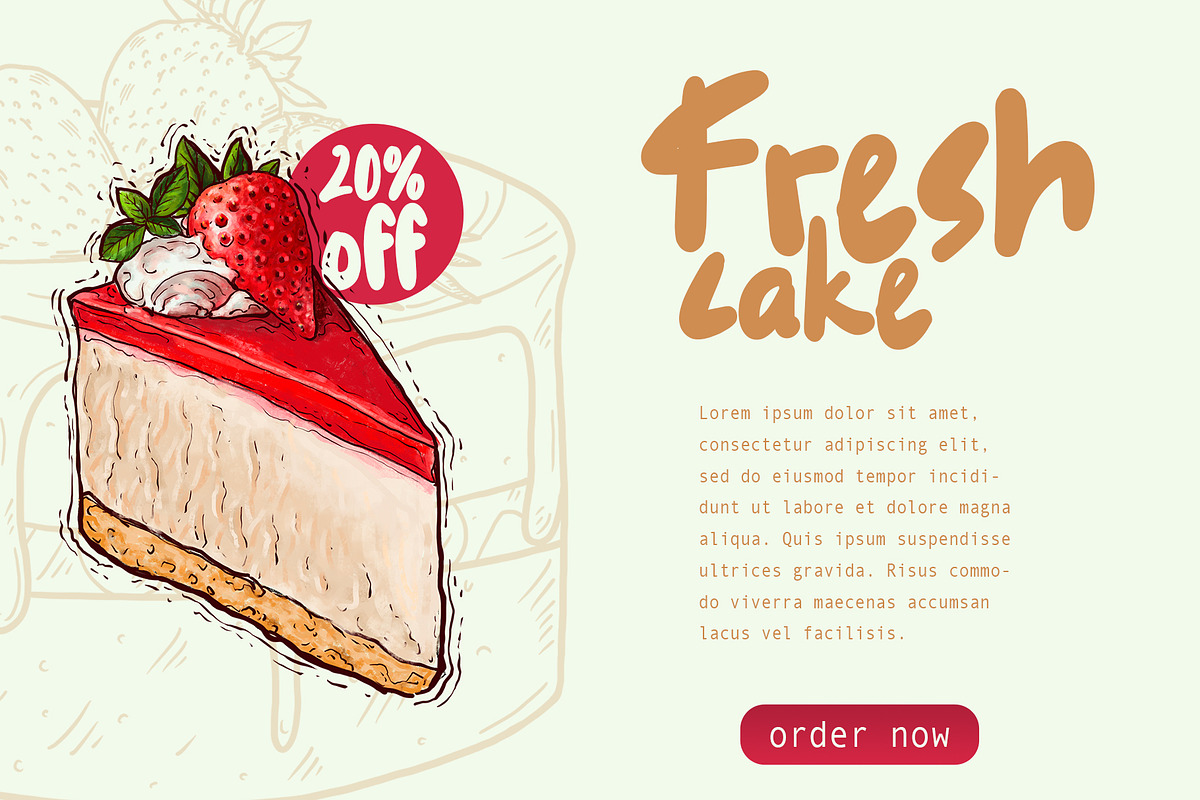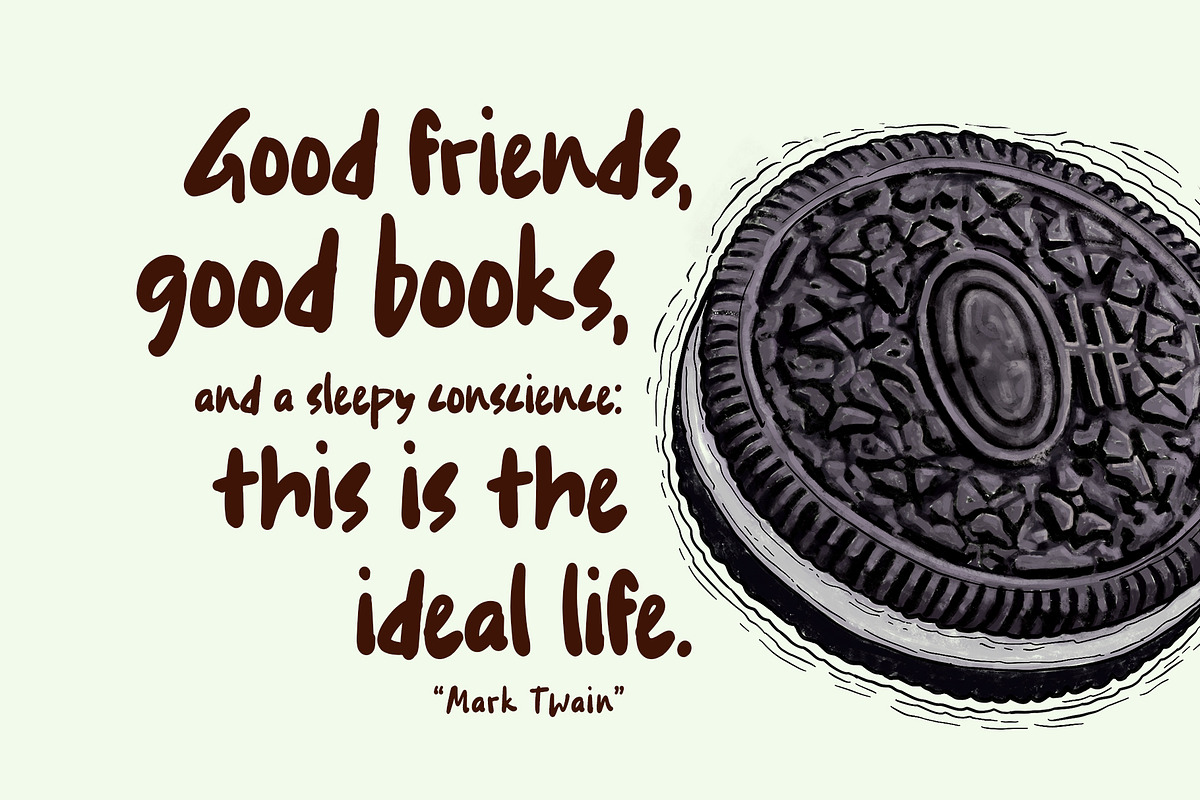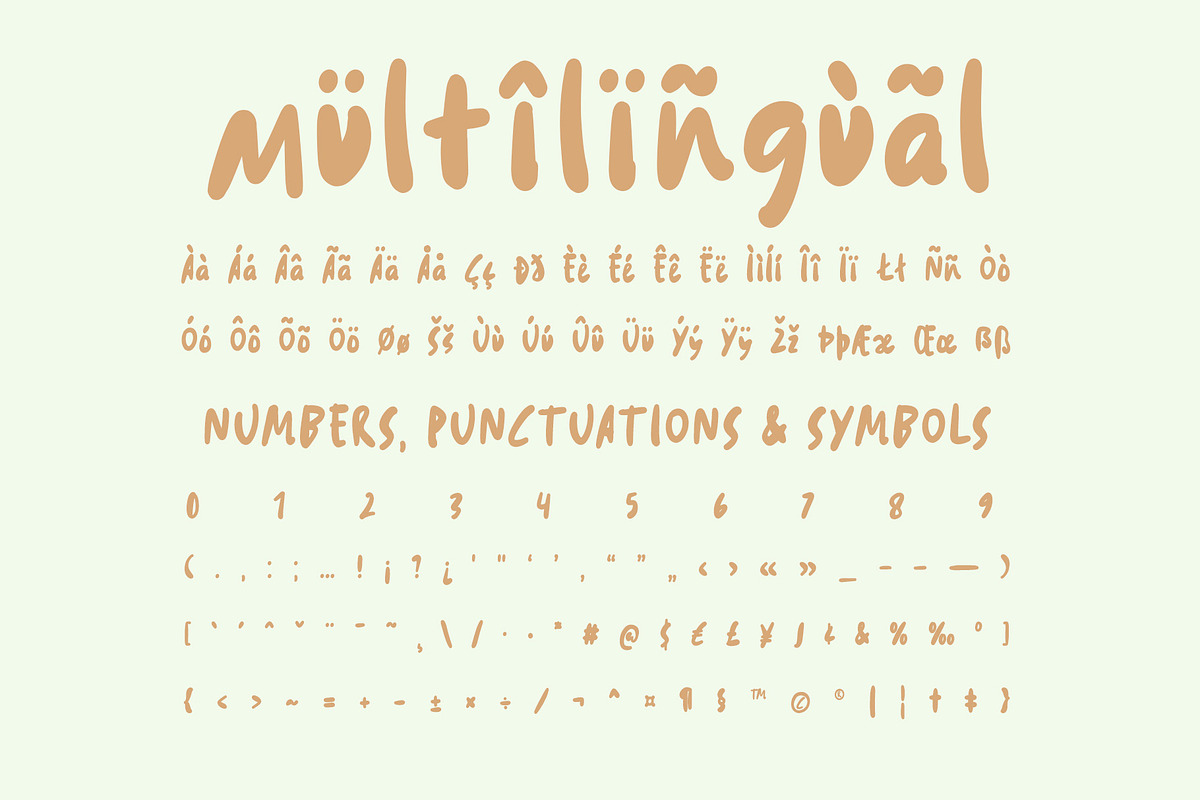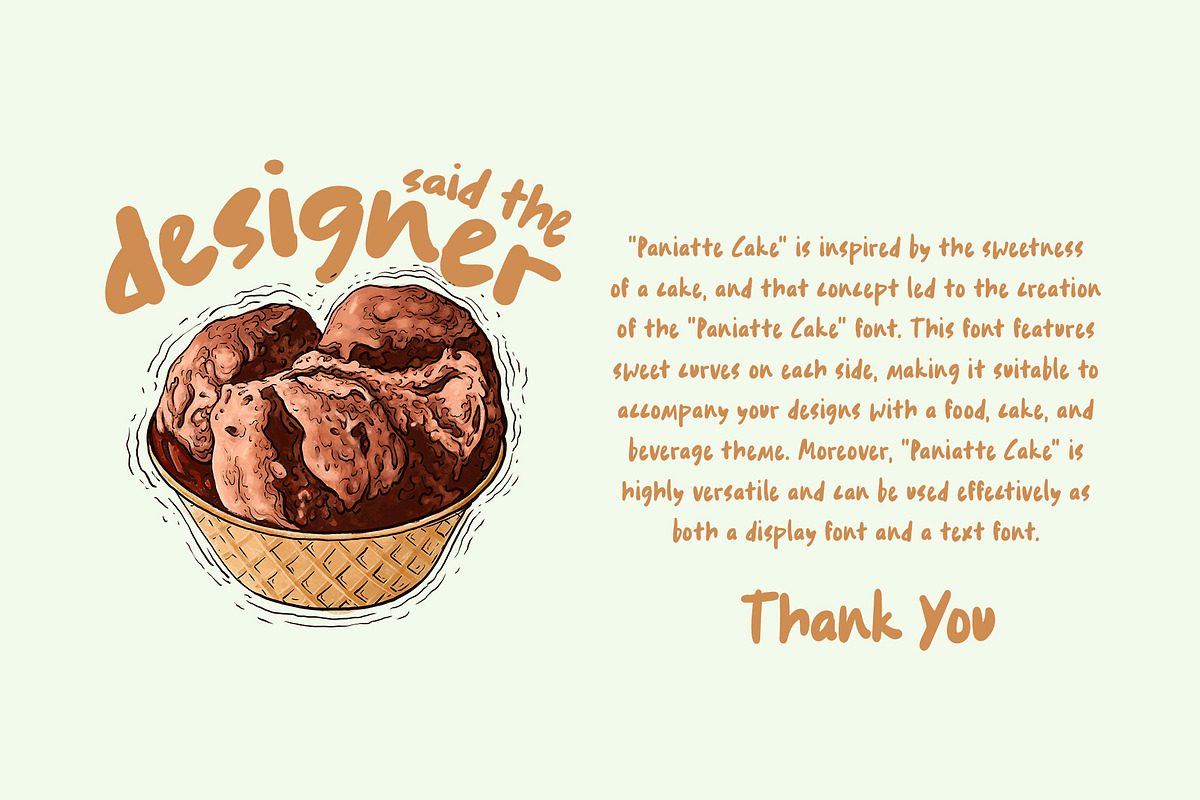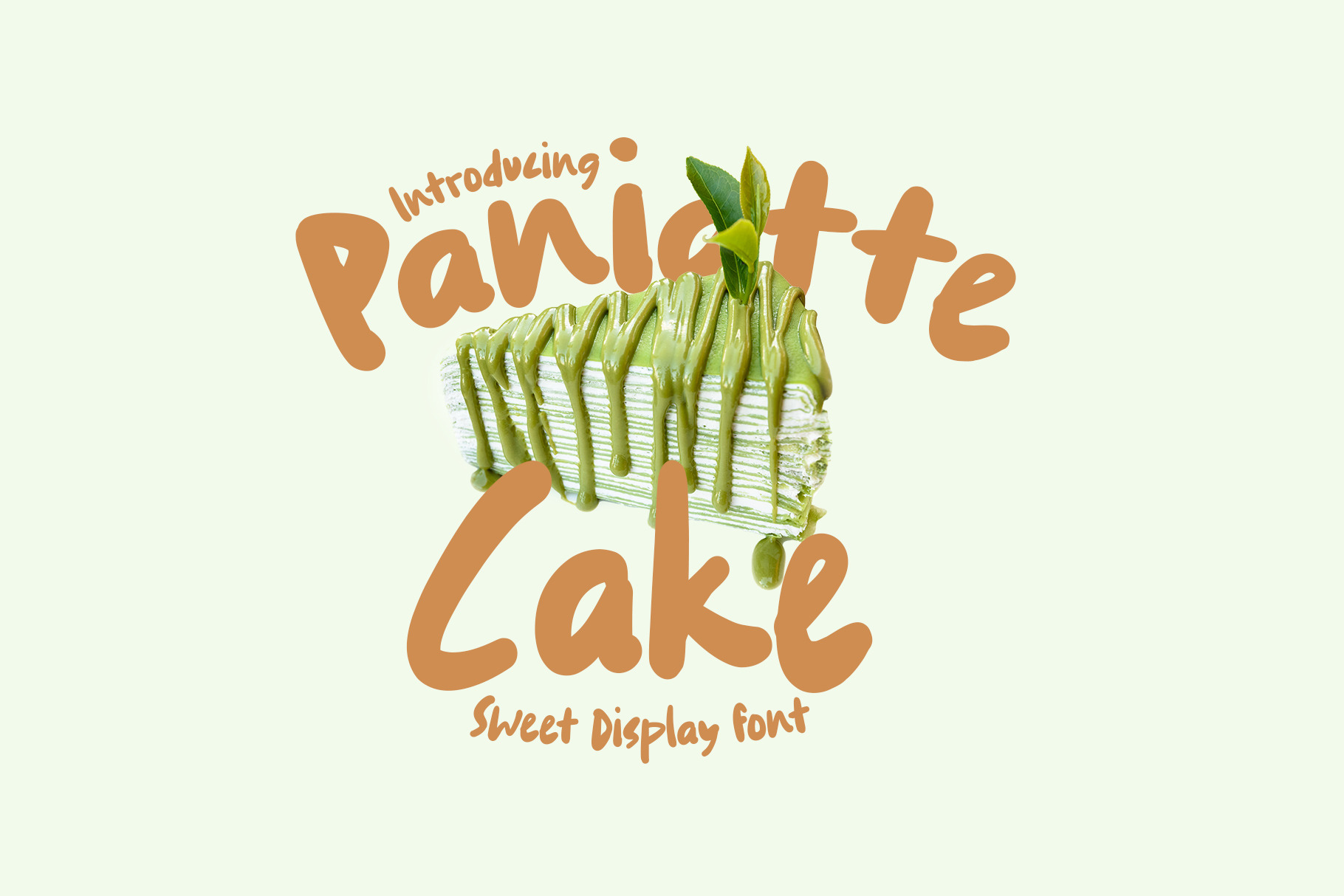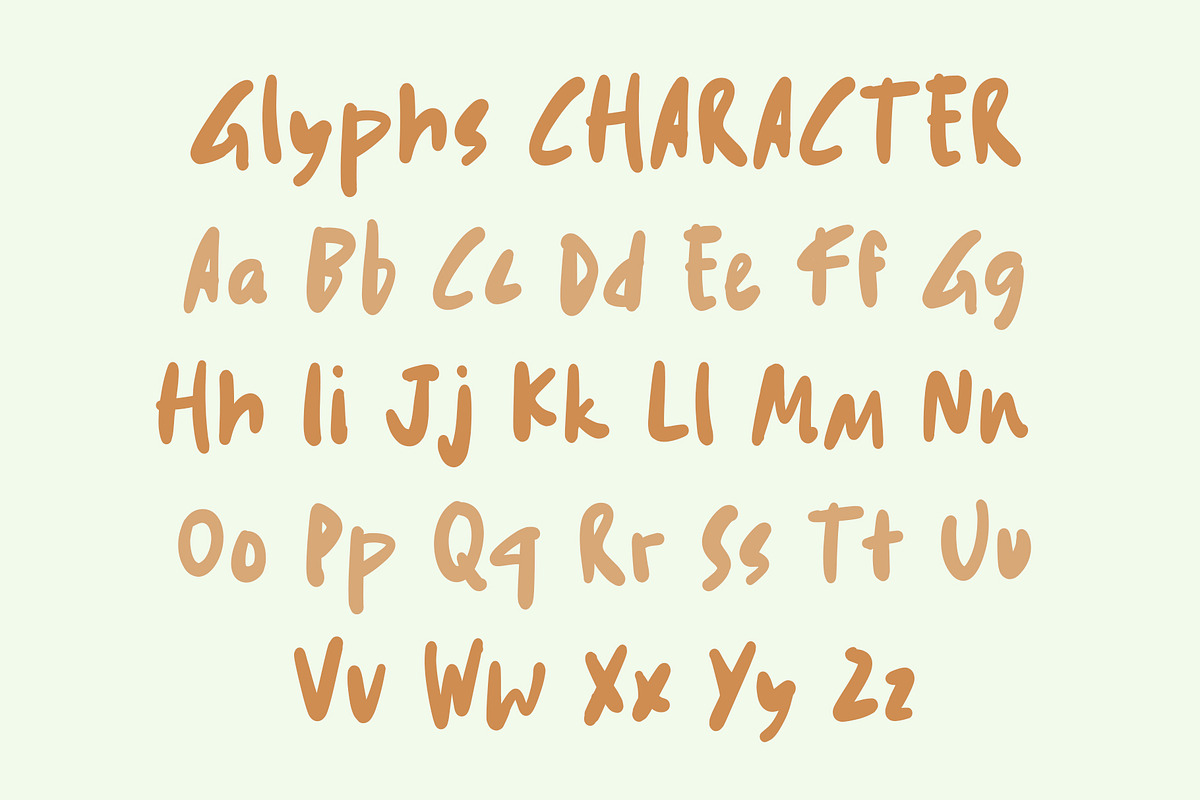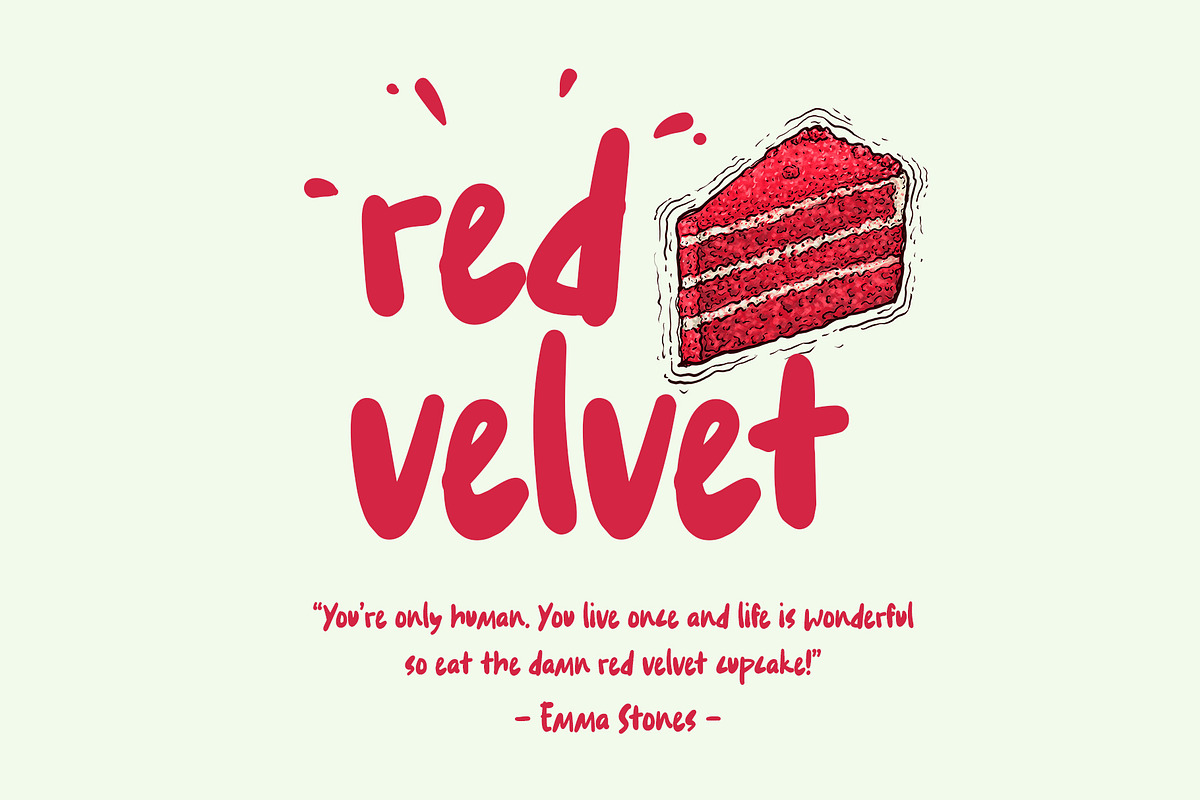
Paniatte Cake Sweet Display Font
Paniatte Cake is a font inspired by the sweetness of cakes. In its creation process, we aimed to express the deliciousness and beauty of cakes through letter designs. Each letter and character in the Paniatte Cake font embodies the softness, beauty, and sweet flavors found in every bite of a delectable cake.
The history behind the creation of this font began with our love for cakes. We wanted to create a font that could evoke the sweetness and deliciousness of cakes through unique and captivating letter designs. Paniatte Cake is the result of our exploration in creating letter designs that represent the characteristics of cakes, such as curves that depict the softness of a delightful and appetizing cake. This font brings the taste of delight and happiness associated with the experience of enjoying a cake.
The Paniatte Cake font is perfect for various design projects related to the culinary world, such as creating logos for cake shops, packaging designs, or promotional media that seek to capture attention with a sweet and delightful touch. It can also be used in greeting cards, invitations, or social media designs that aim to convey sweet and cheerful messages.
By using the Paniatte Cake font in your designs, you can add a sweet and delicious touch to every design element. The letter designs inspired by cakes will leave a mouthwatering impression and provide visual enjoyment for appreciators of your designs.